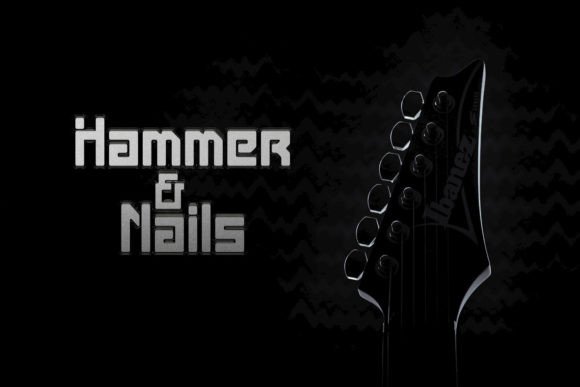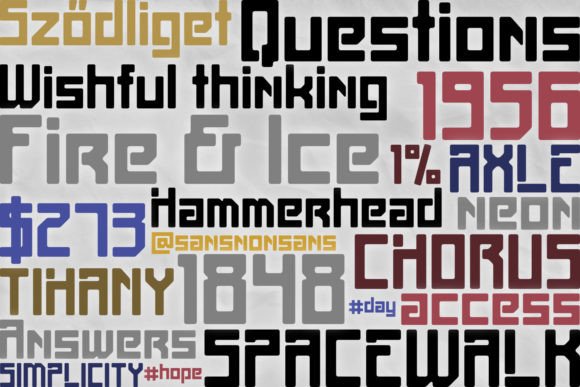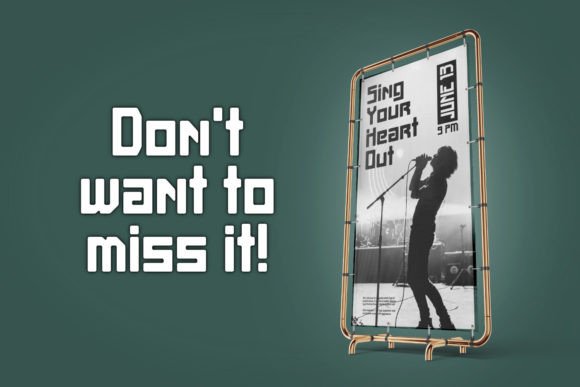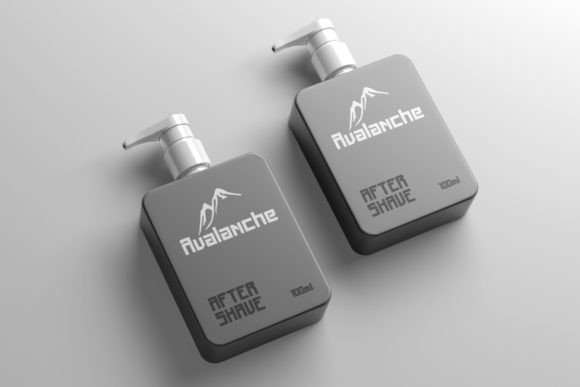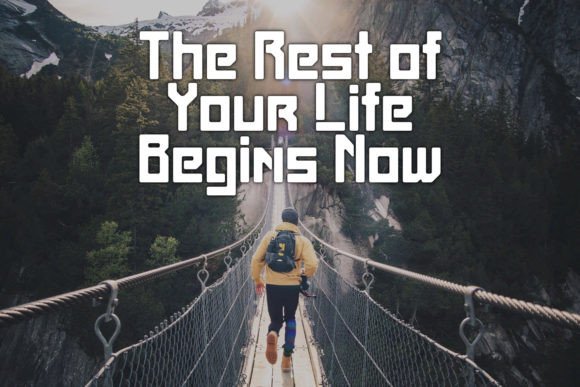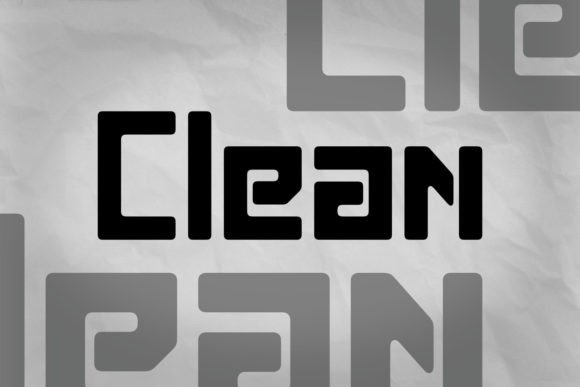
Firmament Font: A Cool Retro-Futuristic Display Font for Creative Projects
In the world of typography, fonts play a crucial role in conveying the tone and personality of a brand, product, or creative project. If you’re a designer, craftsperson, or simply someone who appreciates the art of typography, you’re likely always on the lookout for unique and versatile fonts to elevate your work. One such font that has caught the attention of many creatives is the Firmament Font, a cool retro-futuristic display font that’s perfect for a wide range of applications.
What is Firmament Font?
Firmament Font is a modern, retro-futuristic display font that’s designed to evoke a sense of nostalgia and futurism at the same time. Its sleek lines, geometric shapes, and carefully crafted letterforms make it an excellent choice for projects that require a touch of sophistication and playfulness. Whether you’re working on a logo, headline, or any other design project, Firmament Font is sure to make a statement.
Key Features of Firmament Font
So, what makes Firmament Font so special? Here are some of its key features:
- Retro-Futuristic Design: Firmament Font boasts a unique retro-futuristic design that’s reminiscent of classic sci-fi movies, posters, and album covers.
- Versatility: This font is incredibly versatile and can be used for a wide range of projects, from logotypes and headlines to posters, magazines, and websites.
- Geometric Shapes: Firmament Font features geometric shapes and sleek lines that give it a modern and futuristic feel.
- Easy to Read: Despite its futuristic design, Firmament Font is easy to read, making it perfect for headlines, titles, and short paragraphs.
Use Cases for Firmament Font
Firmament Font is an excellent choice for a variety of creative projects, including:
- Logotypes and Branding: Create a memorable brand identity with Firmament Font, perfect for startups, tech companies, and innovative businesses.
- Headlines and Posters: Add a touch of retro-futurism to your posters, flyers, and brochures with Firmament Font.
- Apparel and Merchandise: Use Firmament Font to create eye-catching designs for t-shirts, hoodies, and other merchandise.
- Music and Movies: Firmament Font is perfect for music album covers, movie posters, and other promotional materials.
- Websites and Social Media: Elevate your website or social media presence with Firmament Font, ideal for headings, titles, and emphasis text.
Tips for Using Firmament Font
To get the most out of Firmament Font, here are some tips to keep in mind:
- Experiment with Sizes: Firmament Font looks great in various sizes, from large headings to smaller body text.
- Play with Colors: Try out different color schemes to match your brand or project’s tone and personality.
- Mix and Match: Combine Firmament Font with other fonts to create a unique and visually appealing typography.
In conclusion, Firmament Font is a versatile and stylish retro-futuristic display font that’s perfect for a wide range of creative projects. Its unique design, geometric shapes, and easy readability make it an excellent choice for designers, craftspersons, and anyone looking to add a touch of sophistication and playfulness to their work. Whether you’re working on a logo, headline, or website, Firmament Font is sure to make a statement.